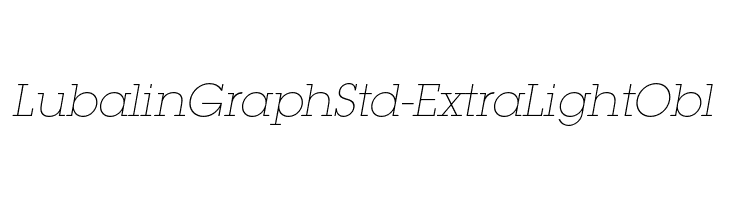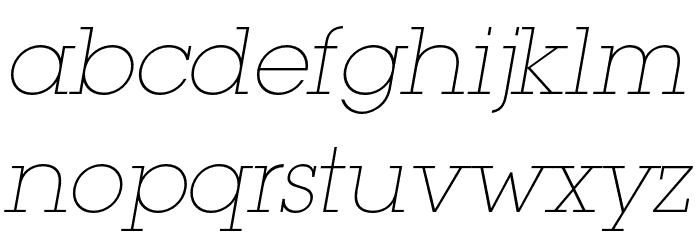
LubalinGraphStd-ExtraLightObl Font
LubalinGraphStd-ExtraLightObl Description
This font features a clean and elegant design, characterized by its extra light weight and oblique style. The letterforms are sleek and modern, with a slight slant that adds a dynamic feel. The characters are well-proportioned, with a consistent stroke width that gives it a refined appearance. The font maintains a balance between readability and style, making it suitable for various applications. Its geometric shapes and minimalistic design contribute to its contemporary look, while the oblique angle adds a touch of sophistication.
A sleek, extra light oblique font with a modern and elegant design from Serif fonts.
- Proposed Projects: Ideal for fashion magazines, modern branding, elegant invitations, and minimalist web design.